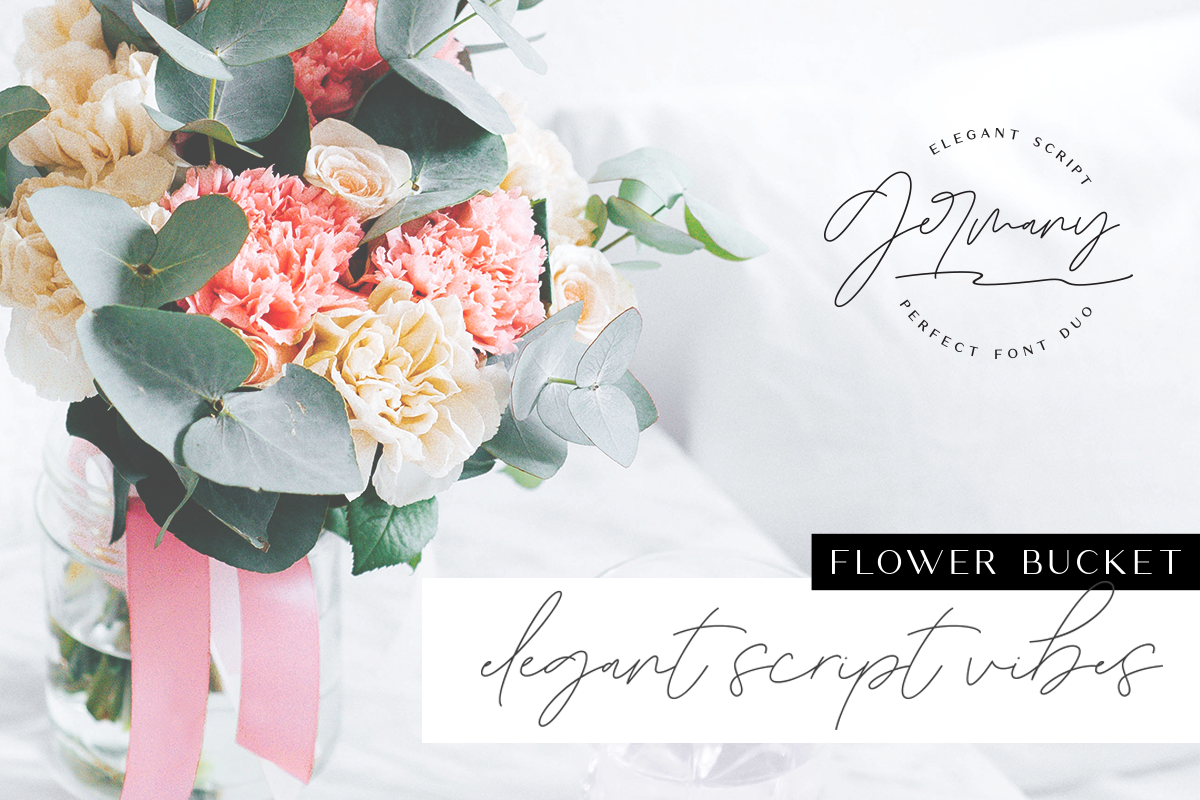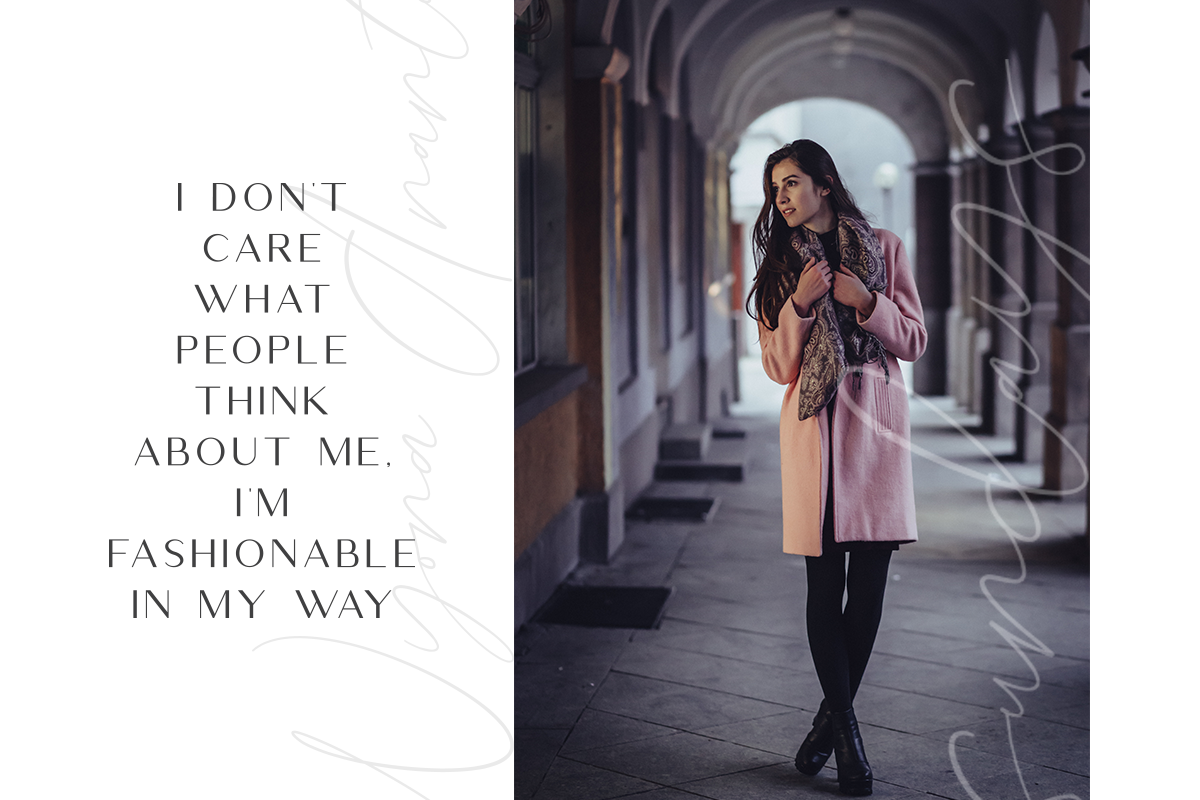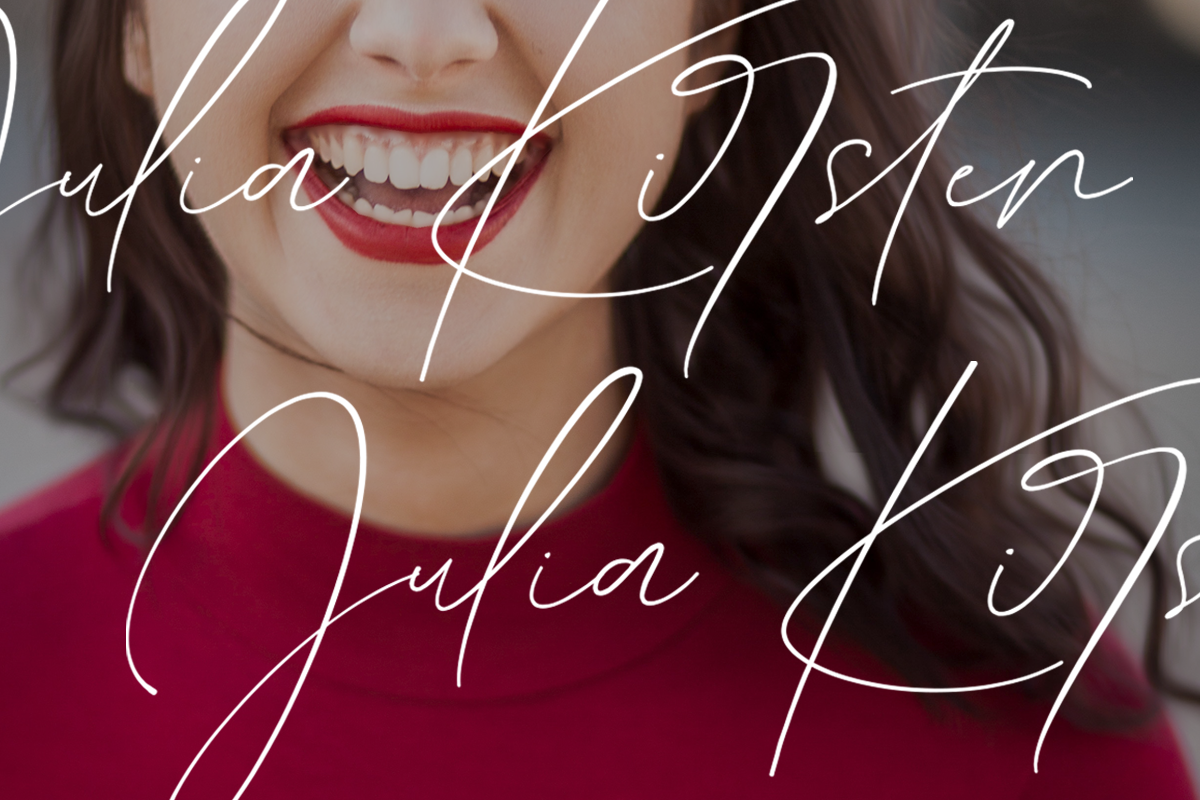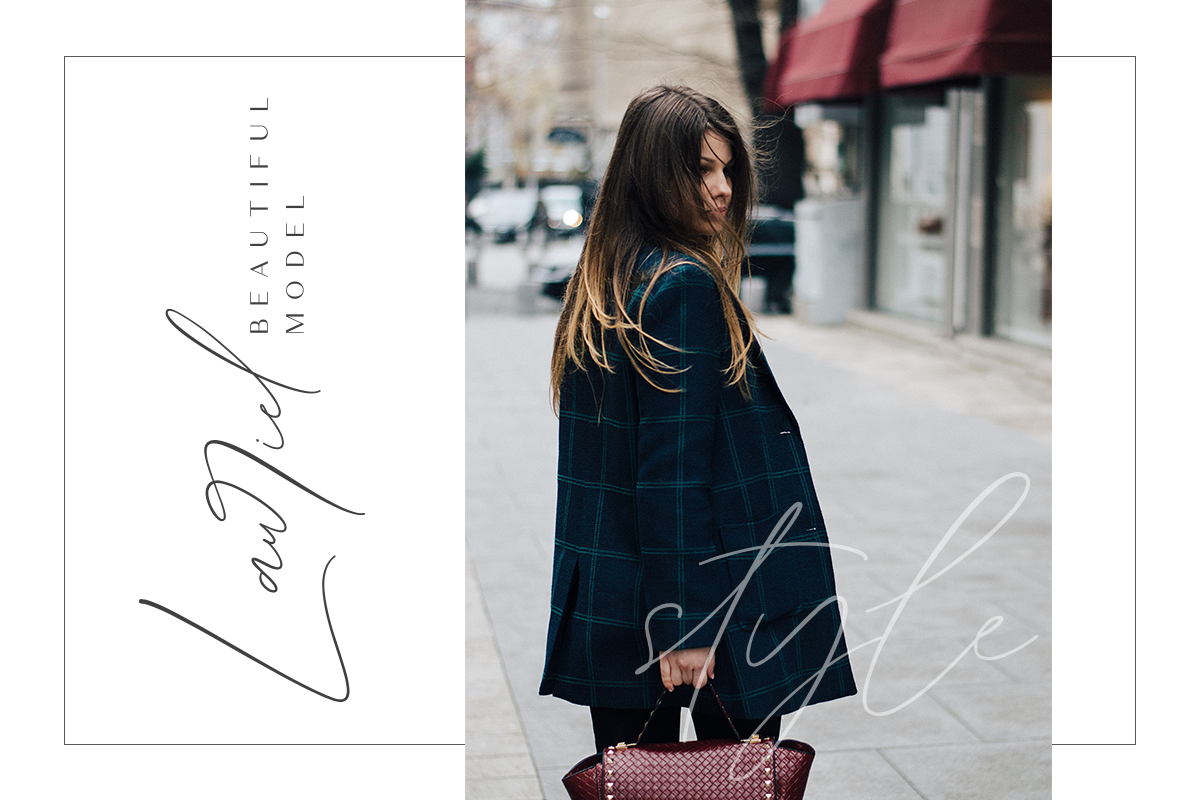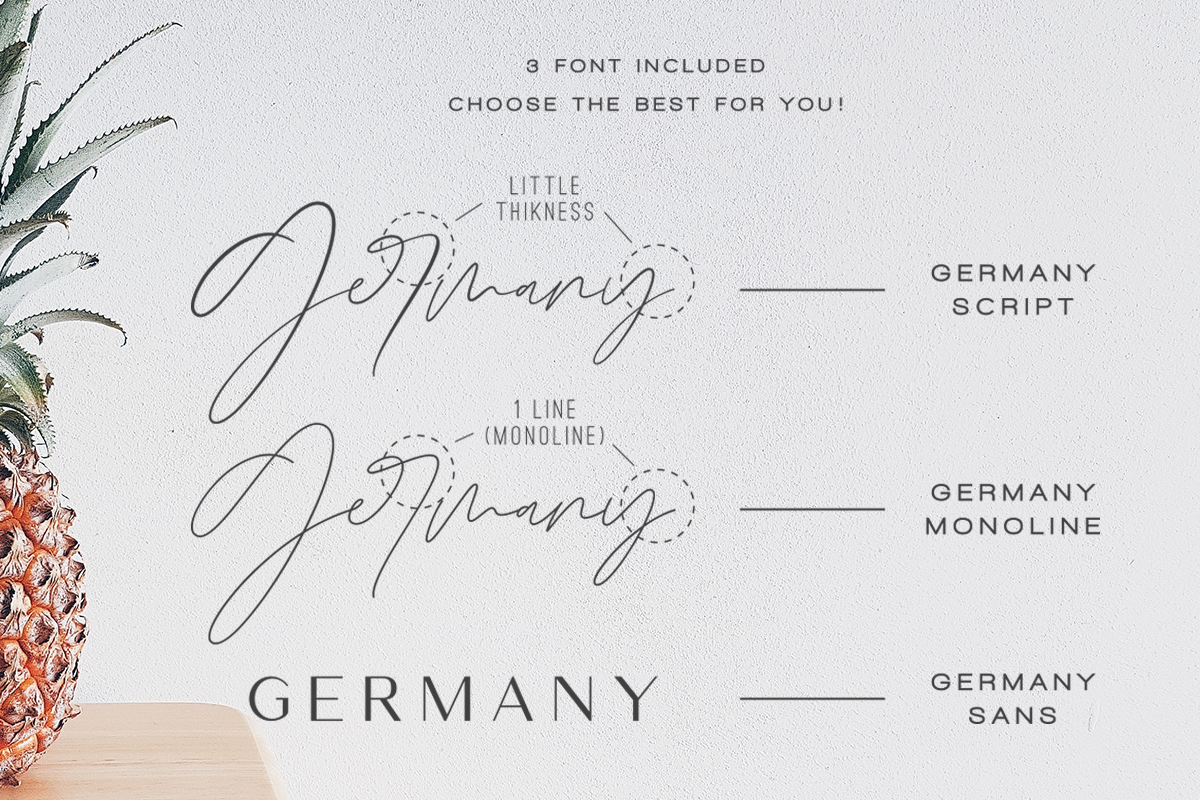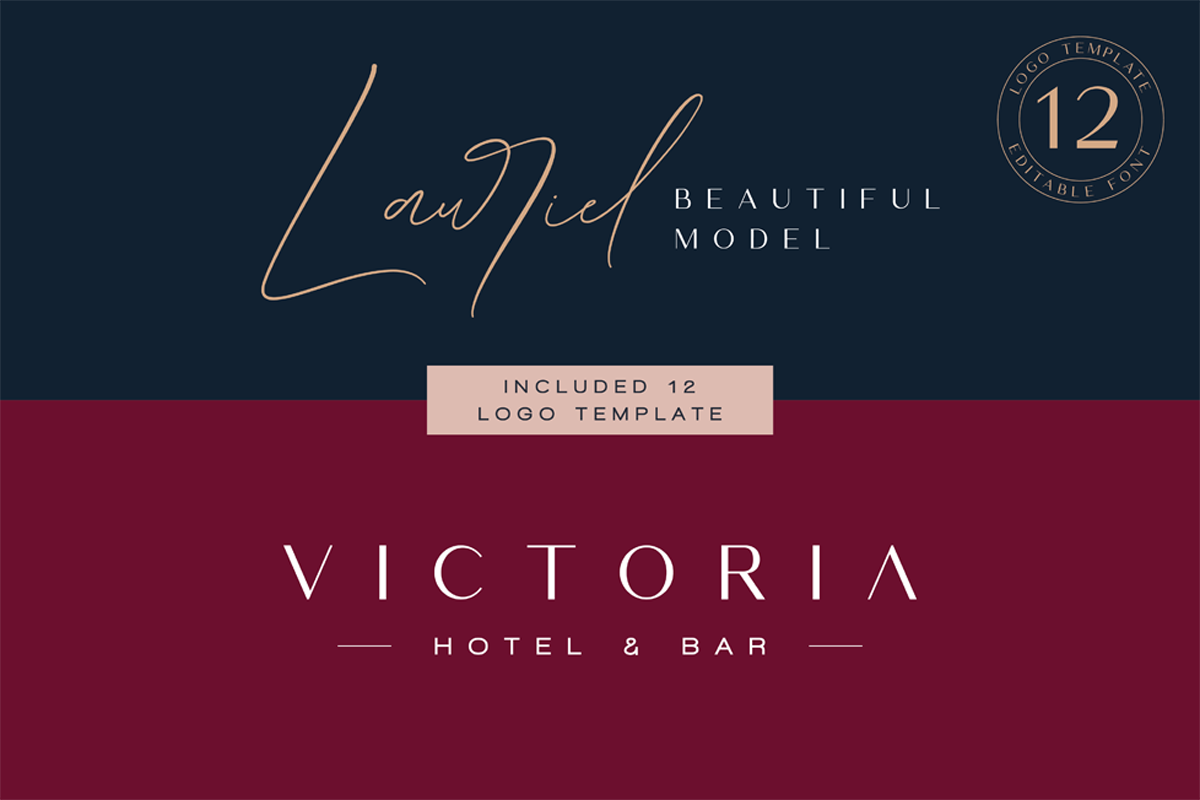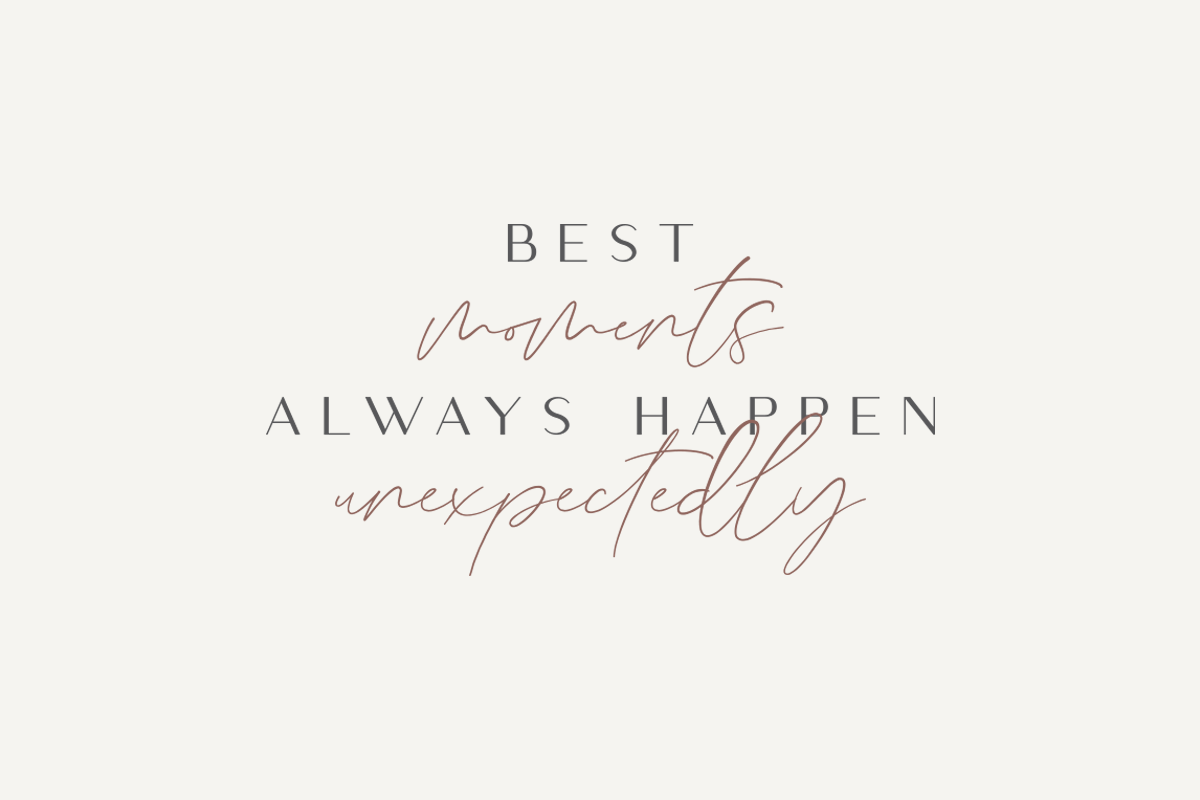
Germany - Luxury Font Duo
Introducing the Germany - Luxury Font Duo, a classy, contemporary pair of script and serif fonts!
Germany offers beautiful typographic harmony for a diversity of design projects, including logos & branding, wedding designs, social media posts, advertisements & product designs.
Germany also includes a set of 12 editable logo templates, each one uniquely combining the two Germany fonts to create striking, modern logo designs for you to edit and use as your own.
- Germany Script : A clean, free-flowing script font containing upper & lowercase characters, numerals and a large range of punctuation.
- Germany Monoline Script : This is a second part of Germany script, has 1 line (monoline) in line pull
- Germany Sans : A classy, high contrast sans font containing uppercase characters only, numerals and a large range of punctuation. Creates a perfect pairing contrast with the Germany fonts.
- Germany Ligature : As the ligature display in the font
- Germany includes over 58 ligatures to make everything look totally hand-done, and alternates for each letter.